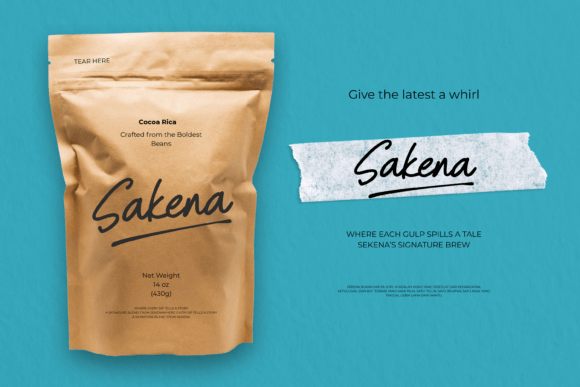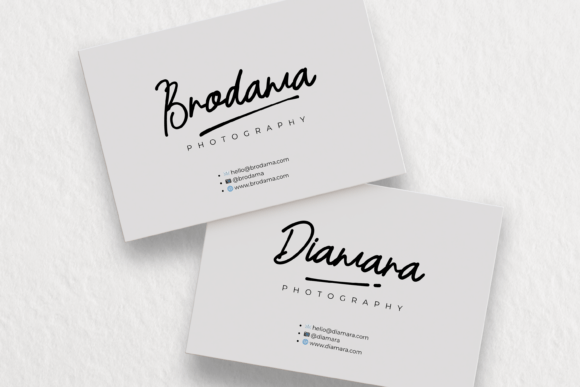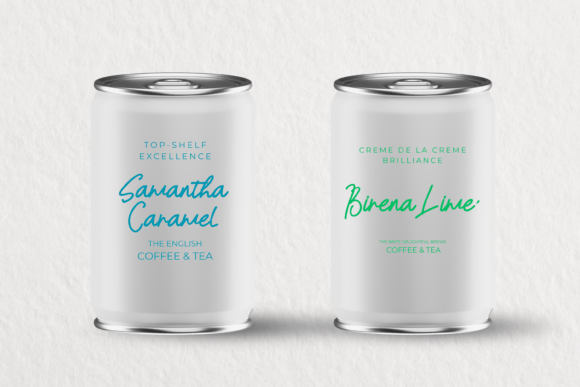
Introduction to Lamdoa Font
Lamdoa.
– A Bold and Spirited Handwritten Script Say hello to Lamdoa — a bold and lively handwritten script that speaks with confidence.
Lamdoa Font offers exceptional quality and versatility, making it a valuable addition to your design toolkit. Whether you’re creating for personal projects or commercial use, Lamdoa Font delivers professional results.